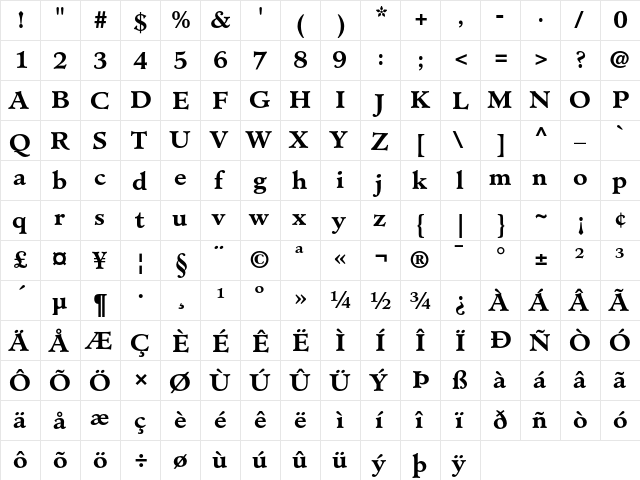
Minister Bold
Design Context for Minister Typeface
Minister takes a measured approach to typography — its balanced proportions and neutral character make it a reliable workhorse for both digital and print work. The heavy weight commands attention and anchors typographic hierarchies.